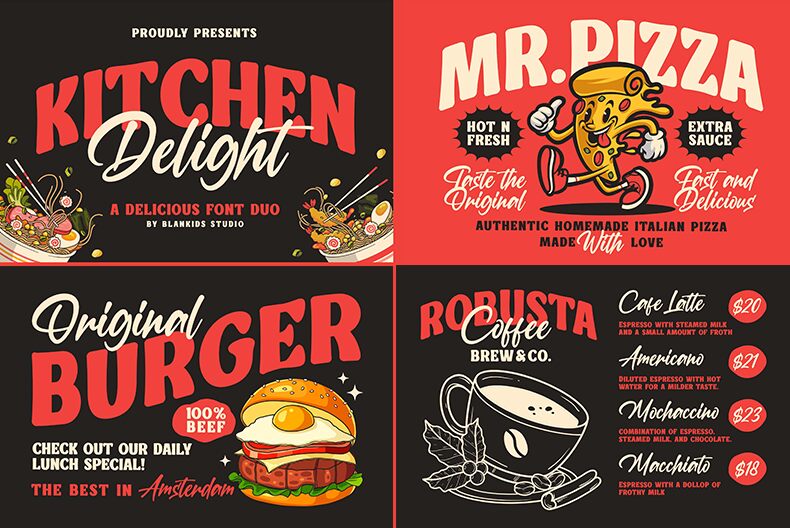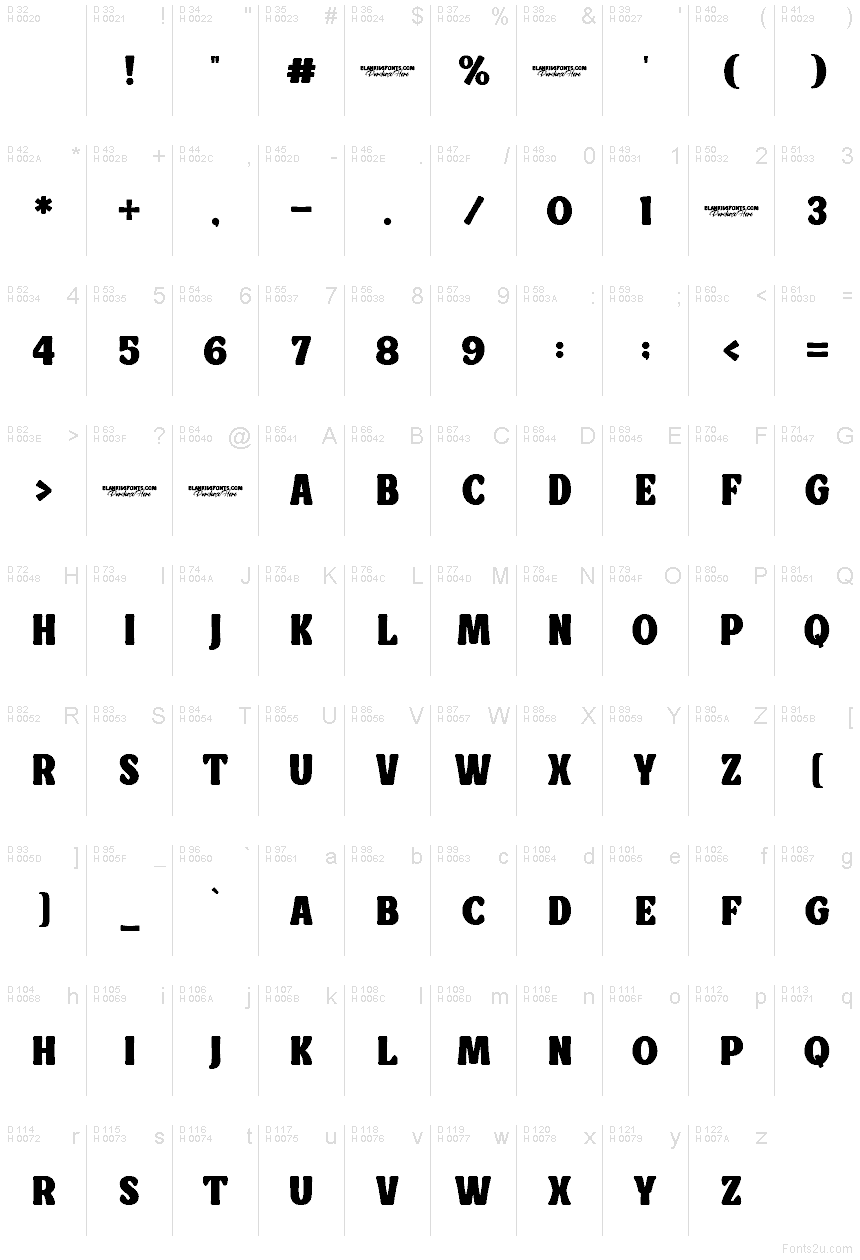
Kitchen Delight Serif
Kitchen Delight Serif font by Blankids is a free retro serif typeface that packs a chewy, sign-painter punch. In the Kitchen Delight family, each letter feels plump and buttery, with rounded corners and snug spacing that reads like diner lettering fresh off a brush. The rhythm stays steady and bold, giving headlines a warm, appetizing presence without turning sloppy.
Using Kitchen Delight Serif, you get instant mid-century menu vibes-great for cafe branding, food packaging, bakery signage, farmers’ market posters, recipe cards, and event flyers. The shapes hold together at large sizes, while a touch of extra tracking adds air when needed. Pair this free font with a clean grotesque sans for copy to keep the nostalgia crisp and readable.